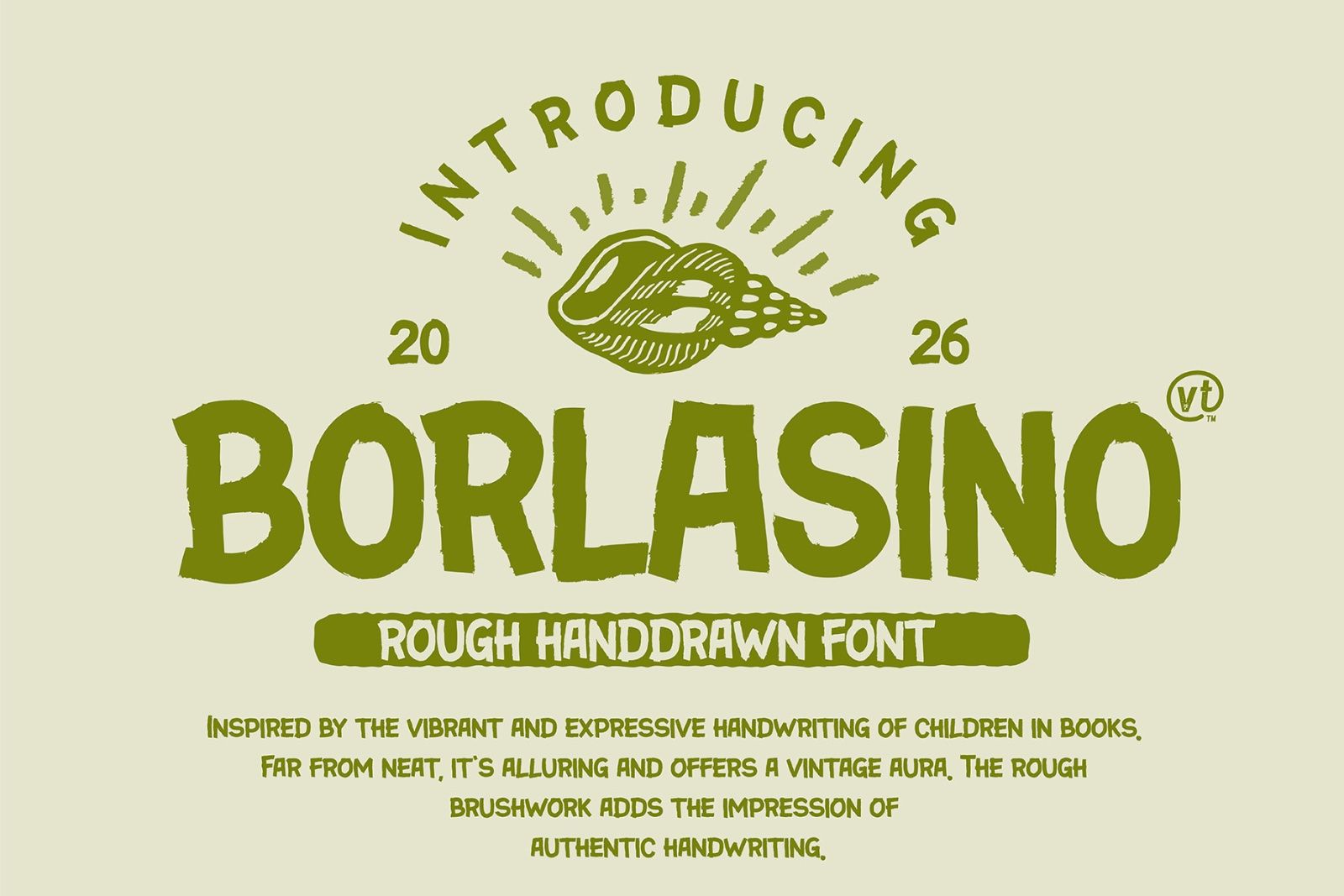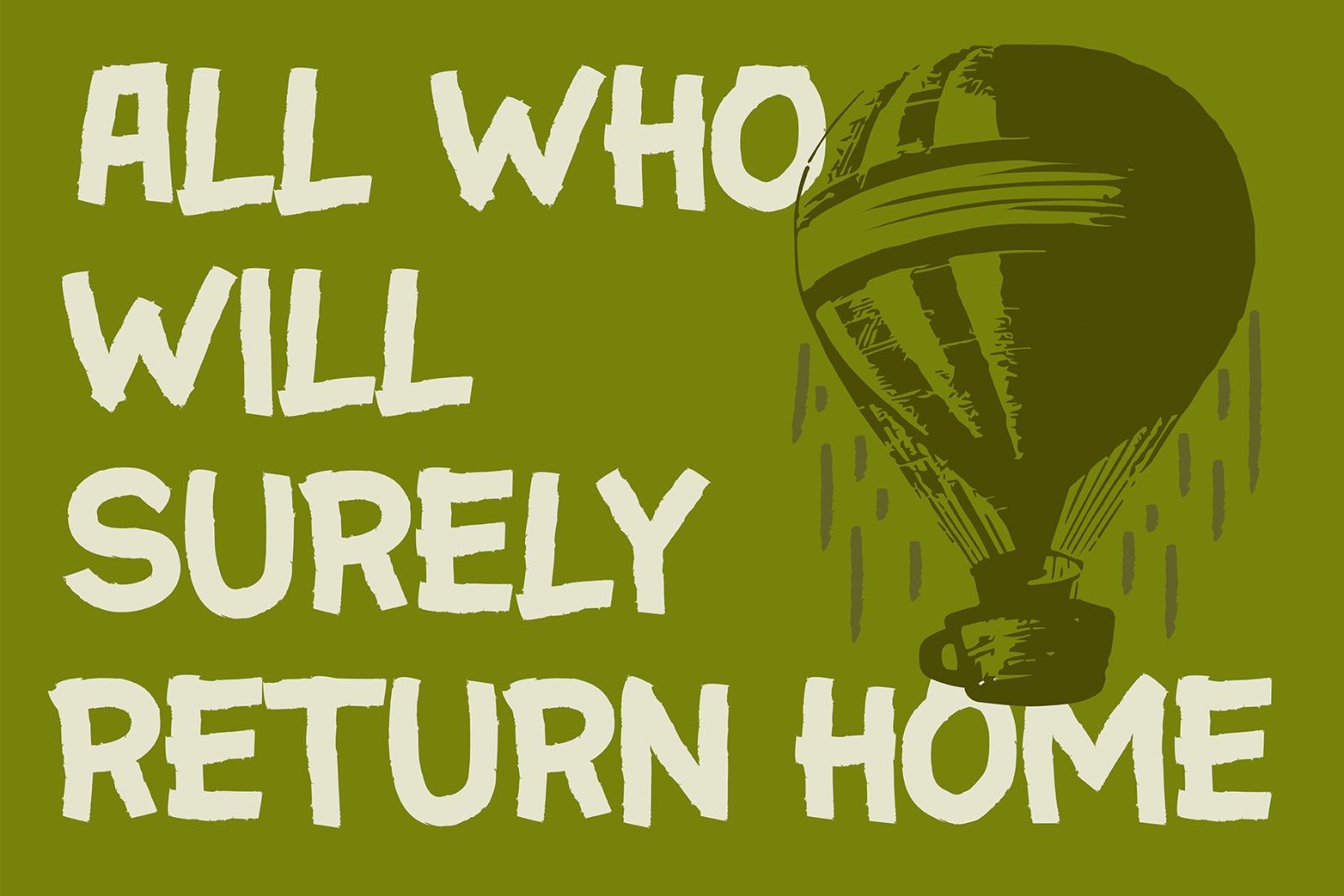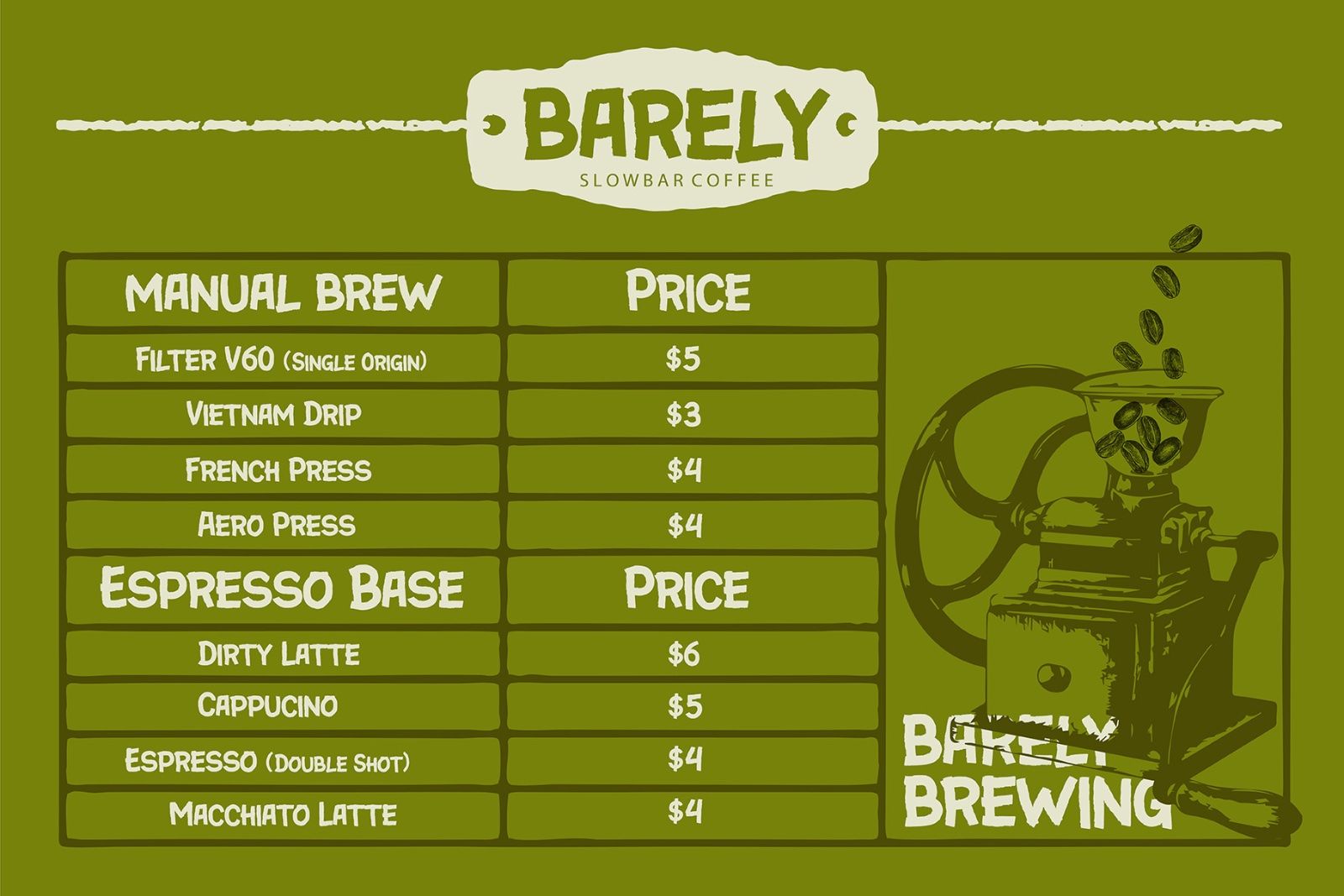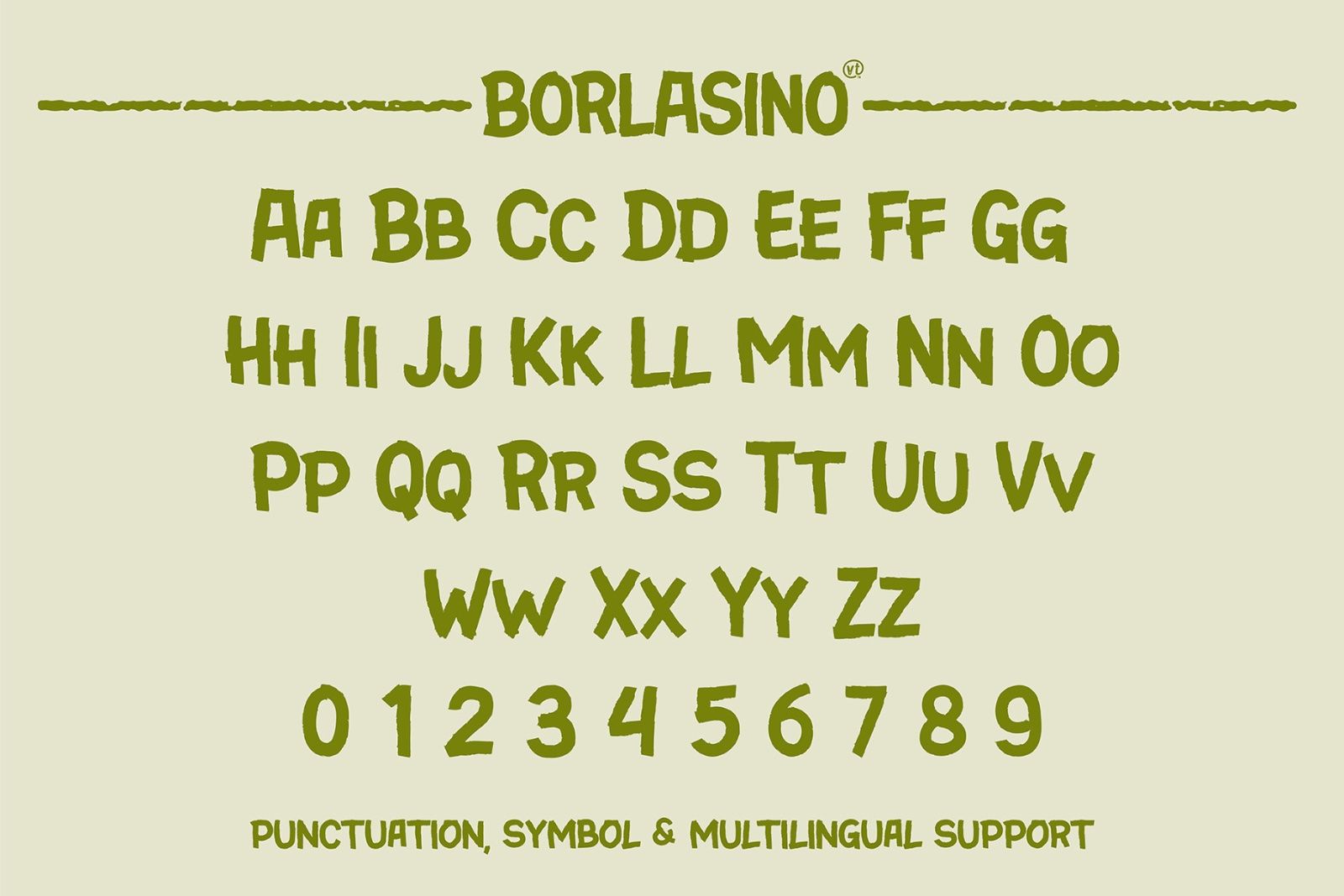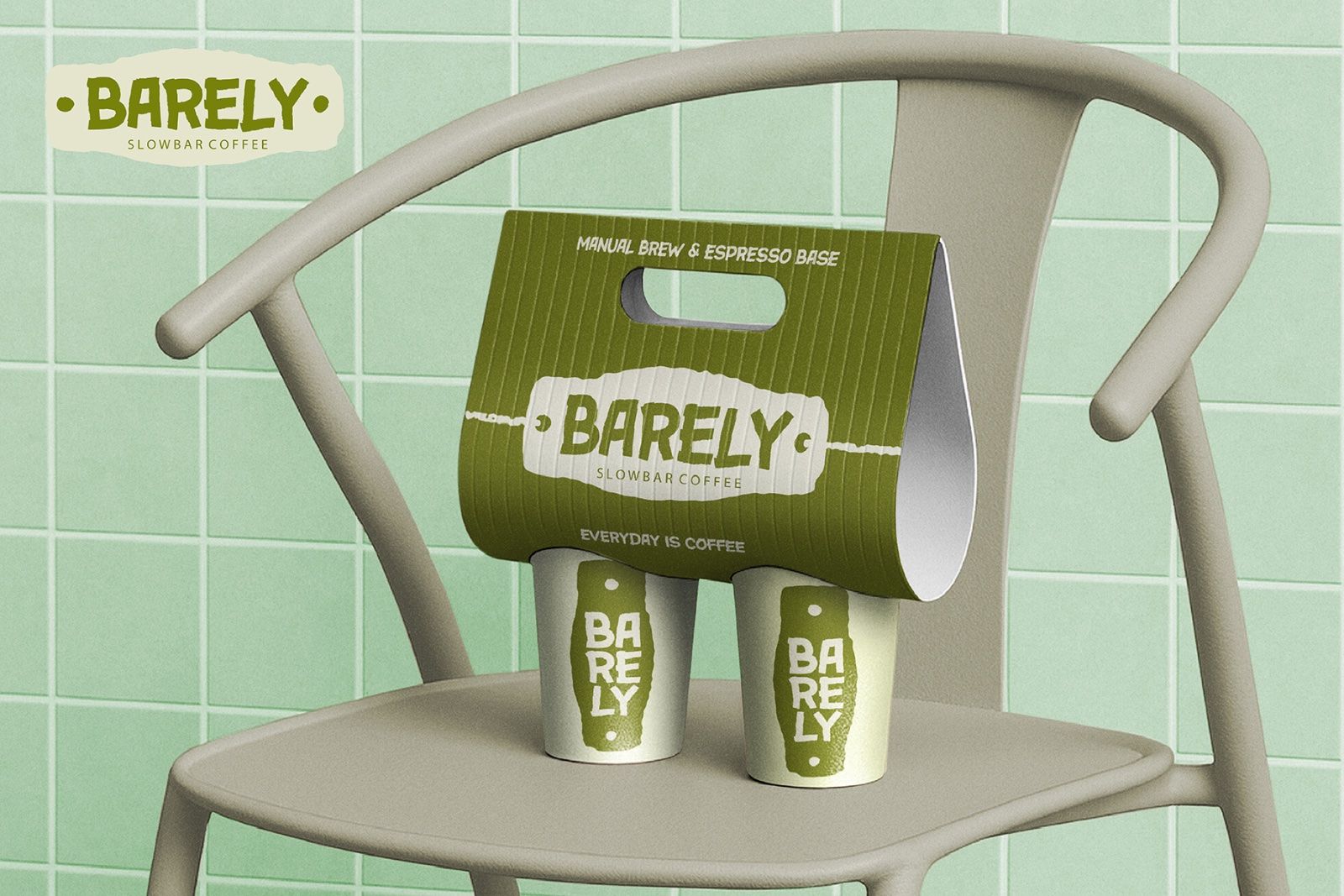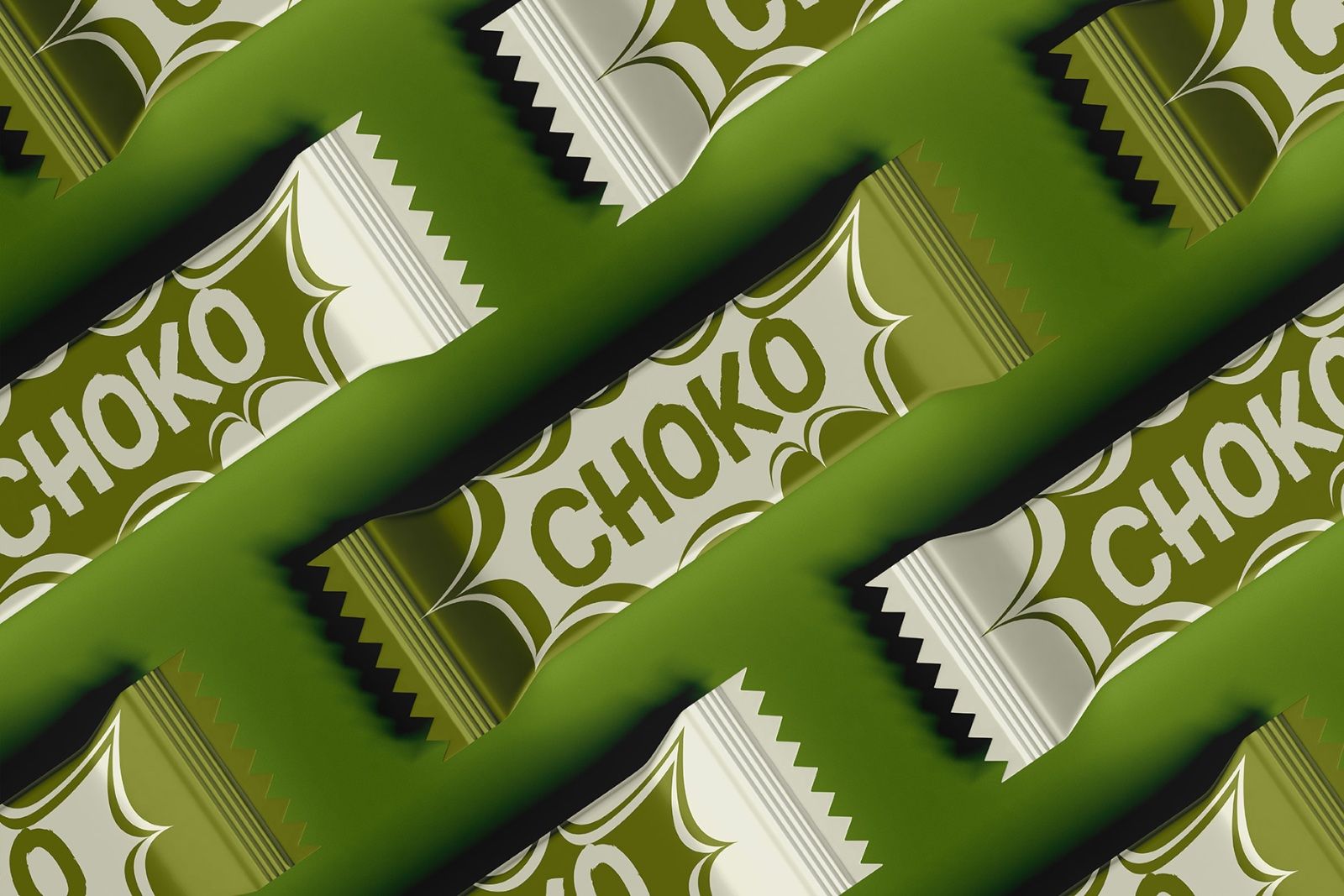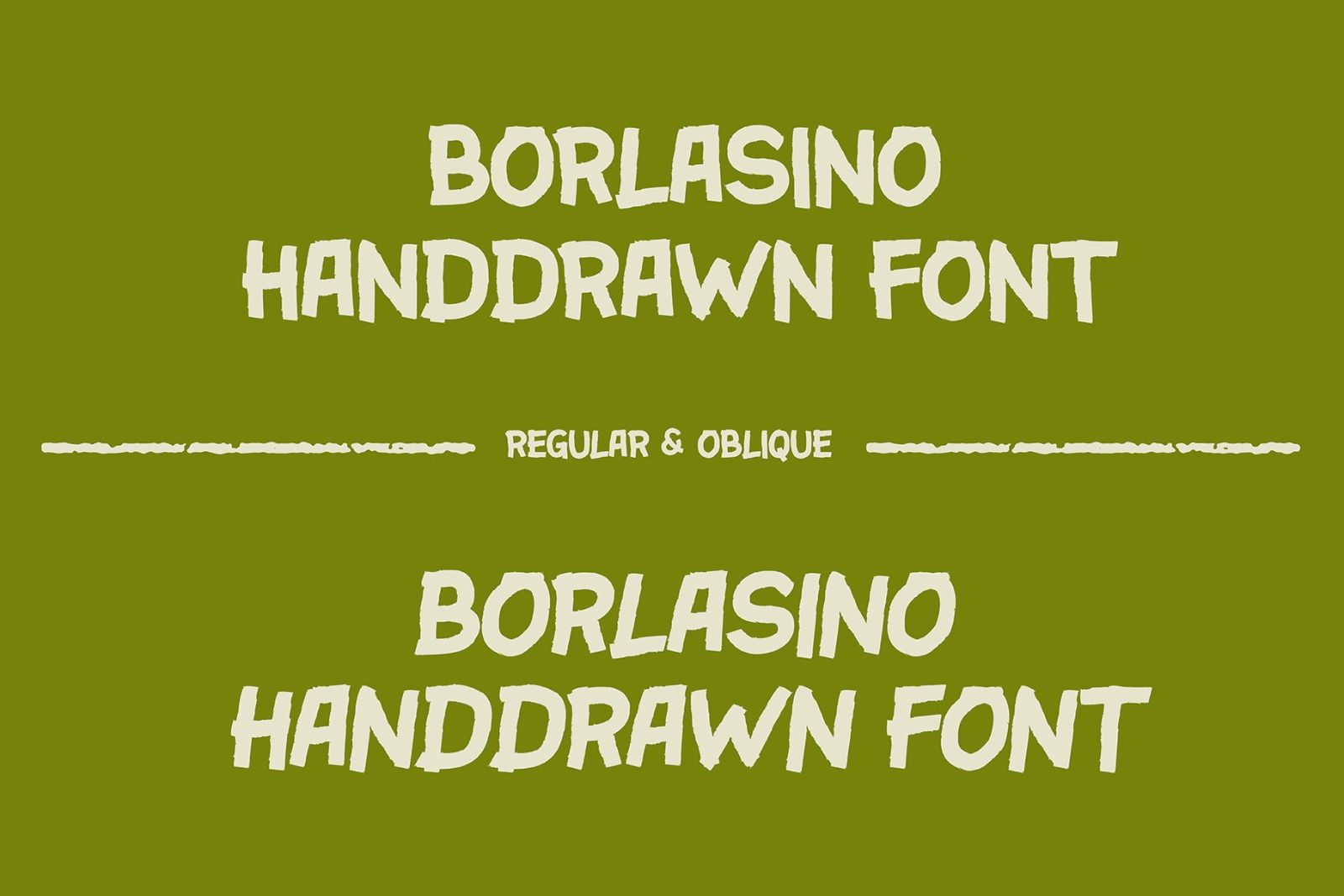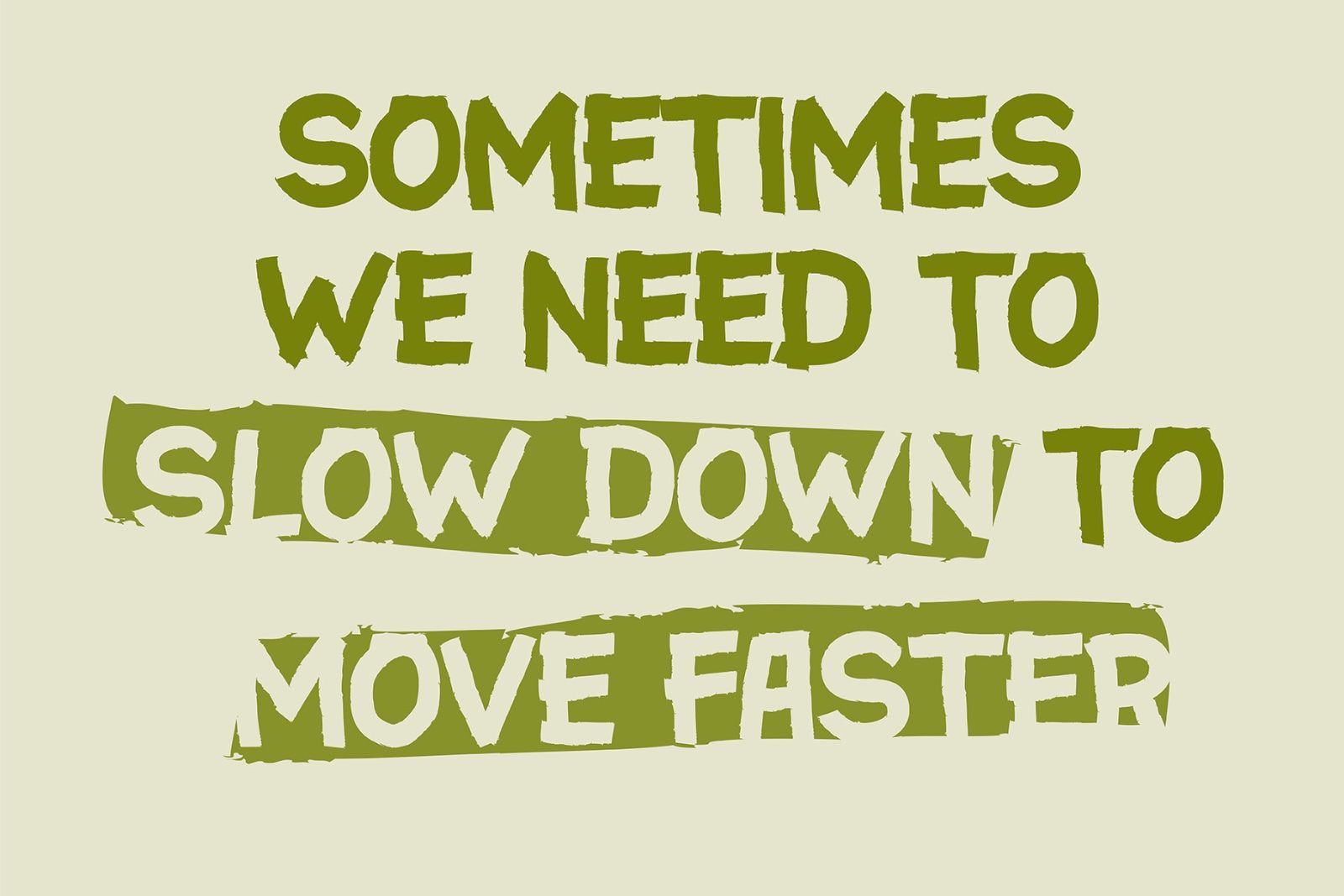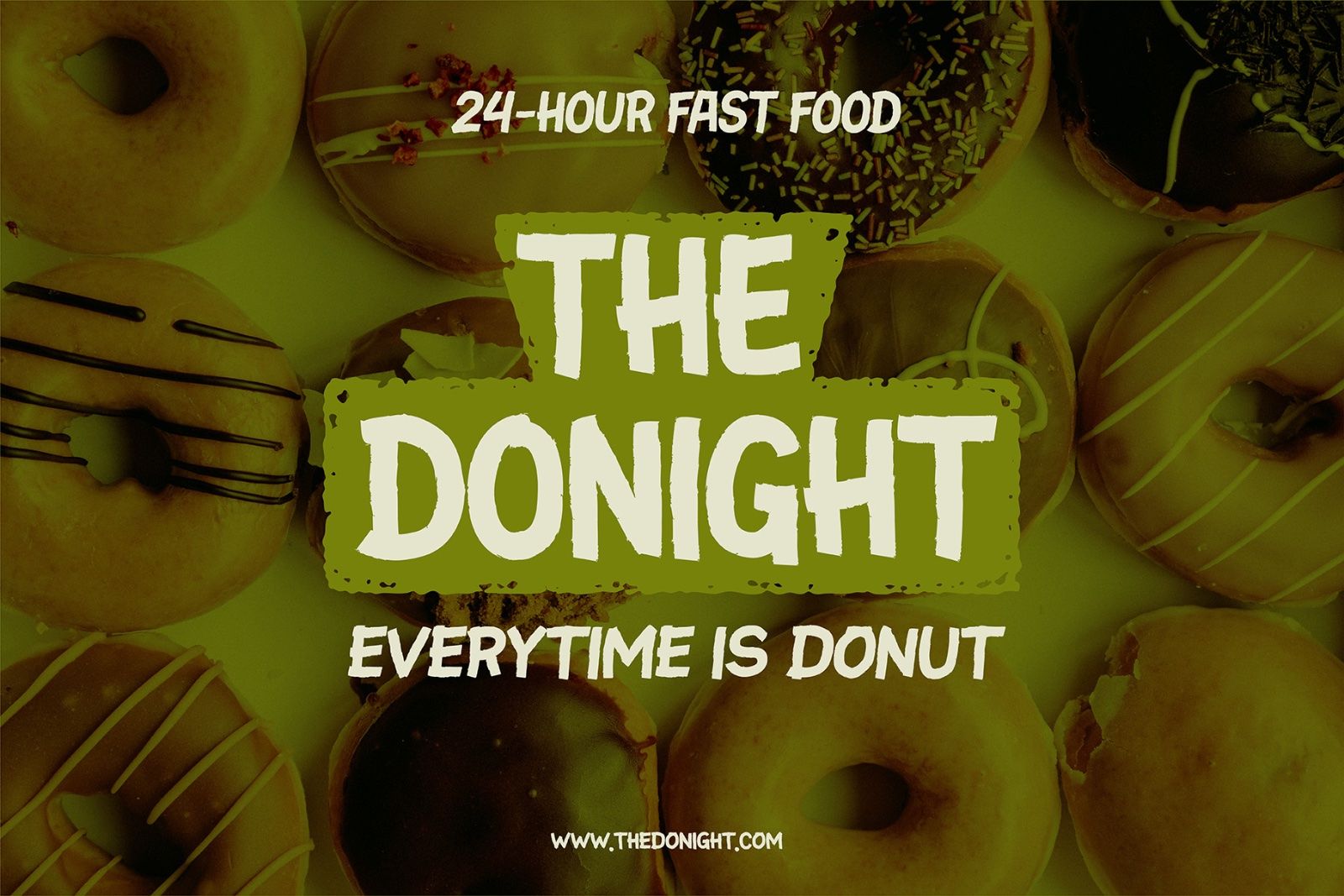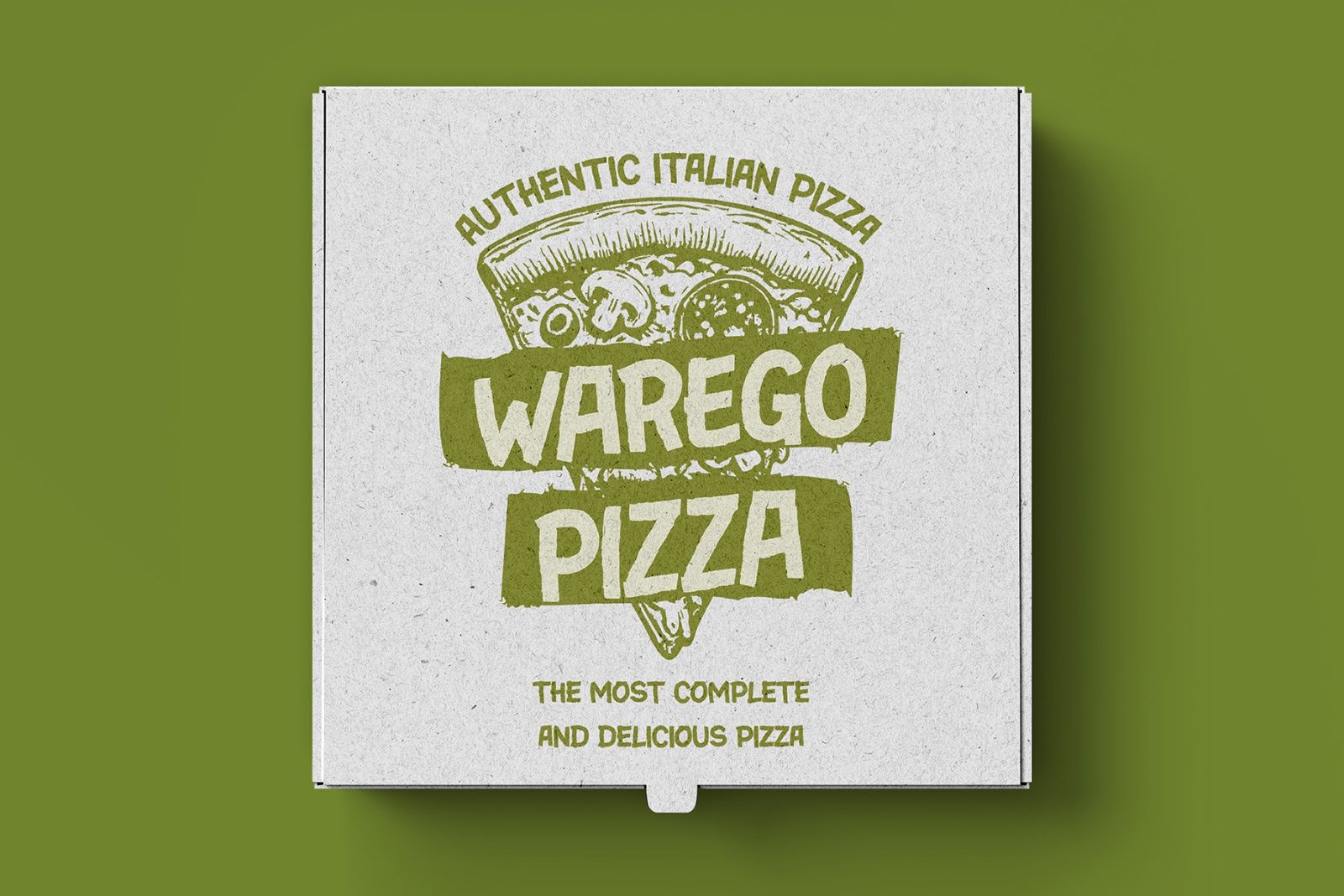
Borlasino – Handcrafted Brush Font is a powerful vintage-inspired typeface created with authentic hand-drawn brush strokes. Every character reflects organic textures, natural imperfections, and bold movement, delivering a genuine handcrafted feel rooted in classic brush lettering.
Designed for designers who seek warmth, personality, and strong visual impact, Borlasino is perfect for vintage branding, logo design, packaging, posters, apparel, coffee labels, signage, album covers, and editorial projects.
The font family includes two expressive styles—Regular and Oblique, offering flexibility for dynamic typography and layered compositions. With full multilingual support, Borlasino is ready for international and commercial use.
Borlasino blends nostalgic vintage aesthetics with modern usability, making it an excellent choice for bold, handcrafted visuals that stand out.